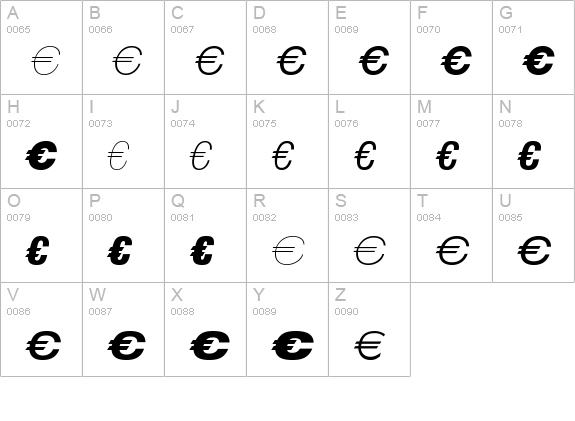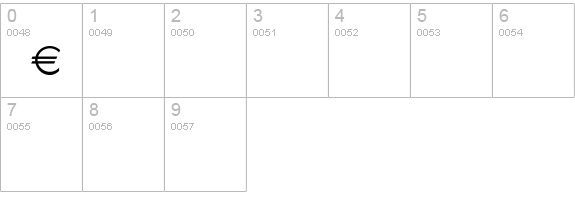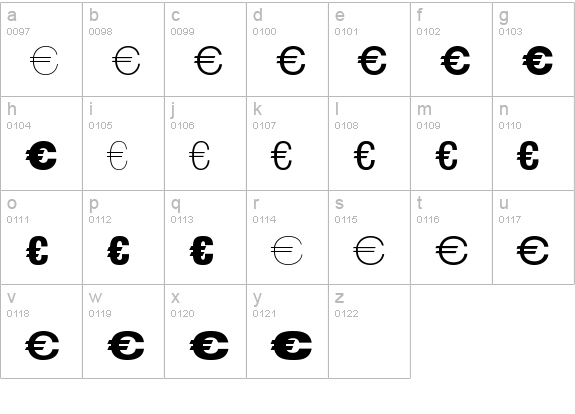
EuroSansEF-One Font Details
EuroSansEF-One is a modern and stylish sans-serif font that exudes elegance and sophistication. With its clean lines and balanced proportions, this versatile typeface is perfect for a wide range of design projects. Whether you're creating a sleek corporate identity, designing a polished website, or crafting eye-catching marketing materials, EuroSansEF-One is sure to make a statement. What sets EuroSansEF-One apart is not only its timeless design but also its accessibility. This font is free to download at FontsMarket.com, making it easy for designers of all levels to access and use. With EuroSansEF-One, you can elevate your designs without breaking the bank. So why wait? Download EuroSansEF-One today and bring your creative vision to life with this premium font at no cost to you.